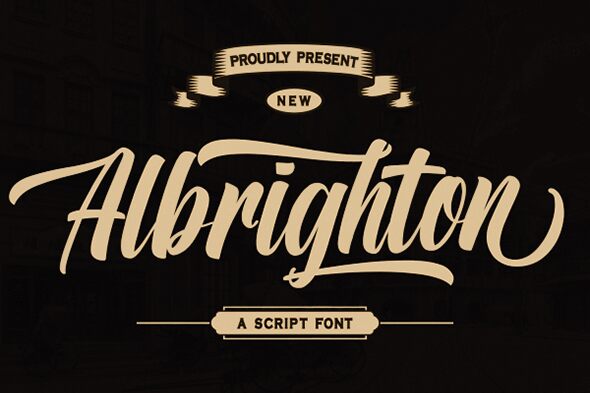
Welcome to Albrighton, the perfect font for projects that need a touch of creativity and personality. Designed by Mozatype, this handwritten typeface with a marker style brings an edgy and modern vibe to your designs. The condensed width adds a sleek and sophisticated touch to any project, from bold headlines to stylish logos. Use Albrighton for anything from fashion branding to social media graphics or even tattoo designs. Its unique character will surely make your work stand out in the crowd. Try Albrighton today and add some flair to your next project!